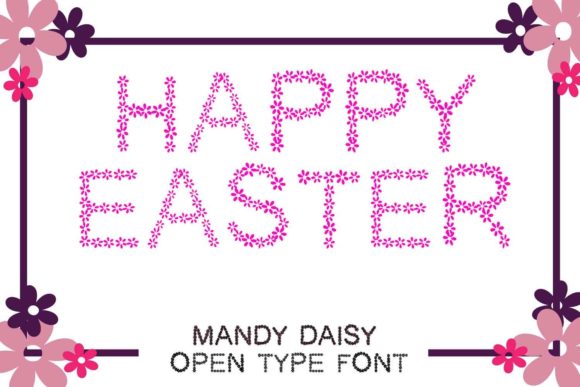
Introduction to Mandy Daisy Font
Mandy Daisy is a delicate and stylish decorative font.
Add this romantic looking font to each of your love letters, wedding invitations or favorite design ideas, and you will be astounded by the outcome .